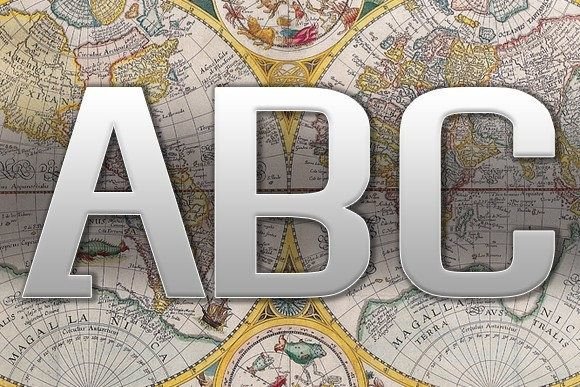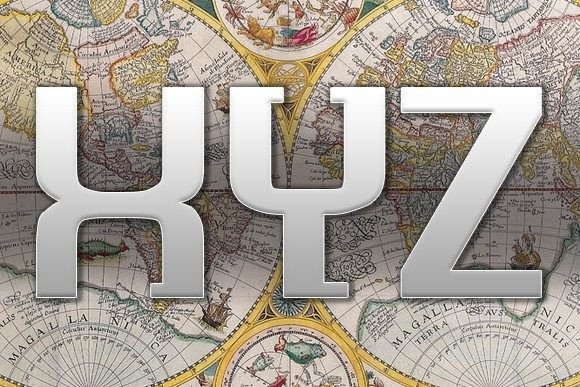
Earth Font: Elevate Your Designs with a Modern and Techno Display Font
Are you tired of using the same old fonts in your designs? Look no further than Earth Font, a superb modern and techno display font that’s sure to take your work to the next level. With its distinct style, Earth Font is the perfect choice for designers and crafters looking to add a touch of sophistication and edge to their projects.
What is Earth Font?
Earth Font is a modern and techno display font designed to make a statement. Its unique and bold style is perfect for creating eye-catching posters, flyers, postcards, and more. Whether you’re a professional designer or a crafty DIY enthusiast, Earth Font is sure to impress.
Key Features of Earth Font
- Distinct Style: Earth Font boasts a one-of-a-kind style that’s sure to set your designs apart from the rest.
- Modern and Techno: This font combines modern and techno elements to create a truly unique look.
- Display Font: Earth Font is designed specifically for display purposes, making it perfect for headlines, titles, and more.
- High Versatility: Use Earth Font for a wide range of projects, from posters and flyers to postcards and social media graphics.
Why Choose Earth Font?
So why choose Earth Font over other fonts on the market? Here are just a few reasons:
- Stand Out: With Earth Font, you’ll be able to create designs that stand out from the crowd and grab attention.
- Easy to Read: Despite its bold and modern style, Earth Font is surprisingly easy to read, making it perfect for both digital and print applications.
- Customizable: Earth Font can be customized to fit your specific design needs, allowing you to experiment with different colors, sizes, and styles.
- Time-Saving: With Earth Font, you can create professional-looking designs in no time, saving you hours of time and effort.
How to Use Earth Font
Using Earth Font is easy! Here are a few tips to get you started:
- Pair with Other Fonts: Earth Font pairs well with other fonts, so don’t be afraid to experiment with different combinations.
- Experiment with Colors: Try out different colors and gradients to add depth and interest to your designs.
- Play with Sizes: Earth Font looks great in a variety of sizes, from small and subtle to large and bold.
- Use on Different Backgrounds: Earth Font can be used on a variety of backgrounds, from solid colors to images and textures.
Design Ideas Using Earth Font
- Posters: Create eye-catching posters for concerts, events, or product launches.
- Flyers: Design flyers for businesses, organizations, or marketing campaigns.
- Postcards: Create postcards for travel companies, hotels, or tourist attractions.
- Social Media Graphics: Use Earth Font to create social media graphics that stand out from the crowd.
Earth Font is a superb modern and techno display font that’s sure to elevate your designs to the next level. With its distinct style, versatility, and ease of use, Earth Font is the perfect choice for designers and crafters looking to add a touch of sophistication and edge to their projects. So why wait? Download Earth Font today and start creating stunning designs that grab attention!